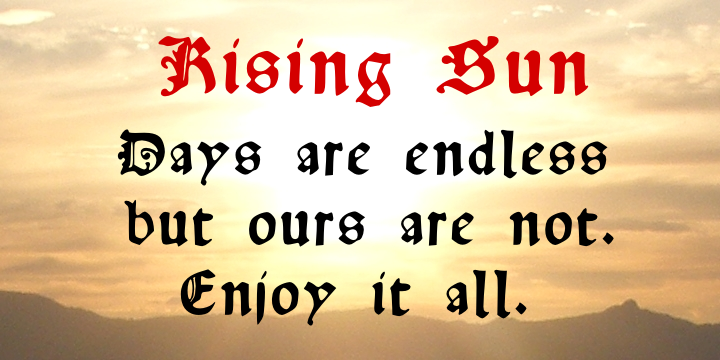
The Rising Sun Font Free Download is a bold, artistic display typeface perfect for cultural event posters, tattoo designs, logo branding, album covers, and creative packaging. Its sharp strokes and unique style reflect a blend of tradition and modern artistry.
What makes the Rising Sun Font so exciting is its striking visual impact combined with cultural elegance. The font’s dynamic lines evoke energy and movement, making your designs stand out with a powerful and sophisticated vibe.
The Rising Sun Font family includes various styles such as Regular, Bold, and Italic, allowing designers to craft versatile and eye-catching layouts.